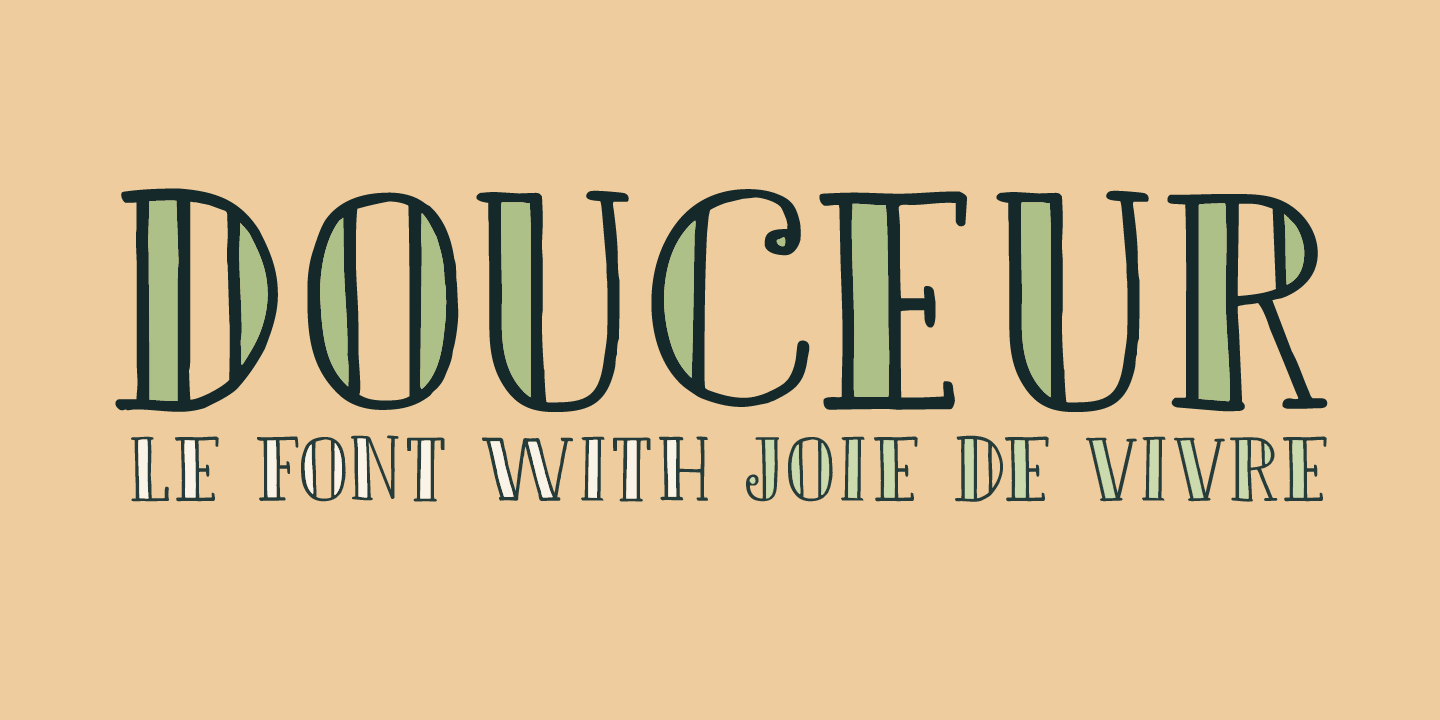
Douceur Font is perfect for French patisserie branding, elegant confectionery packaging, romantic wedding invitations, delicate baby boutique signage, luxury beauty salon identities, gentle spa treatment menus, soft textile fashion labels, and tender motherhood publications. This tender typeface excels in gentle applications, romantic design projects, and any creative work requiring sweet sophistication that captures the essence of French tenderness and delicate sweetness through soft visual caressing.
What makes Douceur Font exciting is its extraordinary ability to embody French sweetness and gentle tenderness through delicately crafted letterforms that caress the eye with soft elegance and whisper with romantic sophistication. The font features tenderly designed characters with gentle curves and sweet proportions that evoke feelings of loving care and French refinement, making it ideal for brands seeking to establish connections with romance-loving audiences and communicate through gentle French visual language. Its tender presence ensures immediate recognition of French authenticity and sweet sophistication.
Douceur Font family includes multiple weights and styles: Regular, Bold, Light, Medium, Italic variations, and romantic alternates with French embellishments and tender decorative elements. Each family member maintains the distinctive gentle character while offering comprehensive design options for sweet campaigns, from delicately tender text to lovingly sweet headlines that establish romantic authority and French credibility through tenderly sophisticated typography.
Whether you're designing French romance brands or creating gentle sweetness campaigns, Douceur Font Free Download provides the perfect typography solution for tender branding needs. This font transforms ordinary text into sweet French expressions that communicate gentle sophistication and romantic tenderness. French patisseries and romantic lifestyle brands choose this typeface for its ability to convey French sweetness through delicately crafted letterforms that caress through designs with tender grace and celebrate the beautiful gentleness of French romantic tradition.